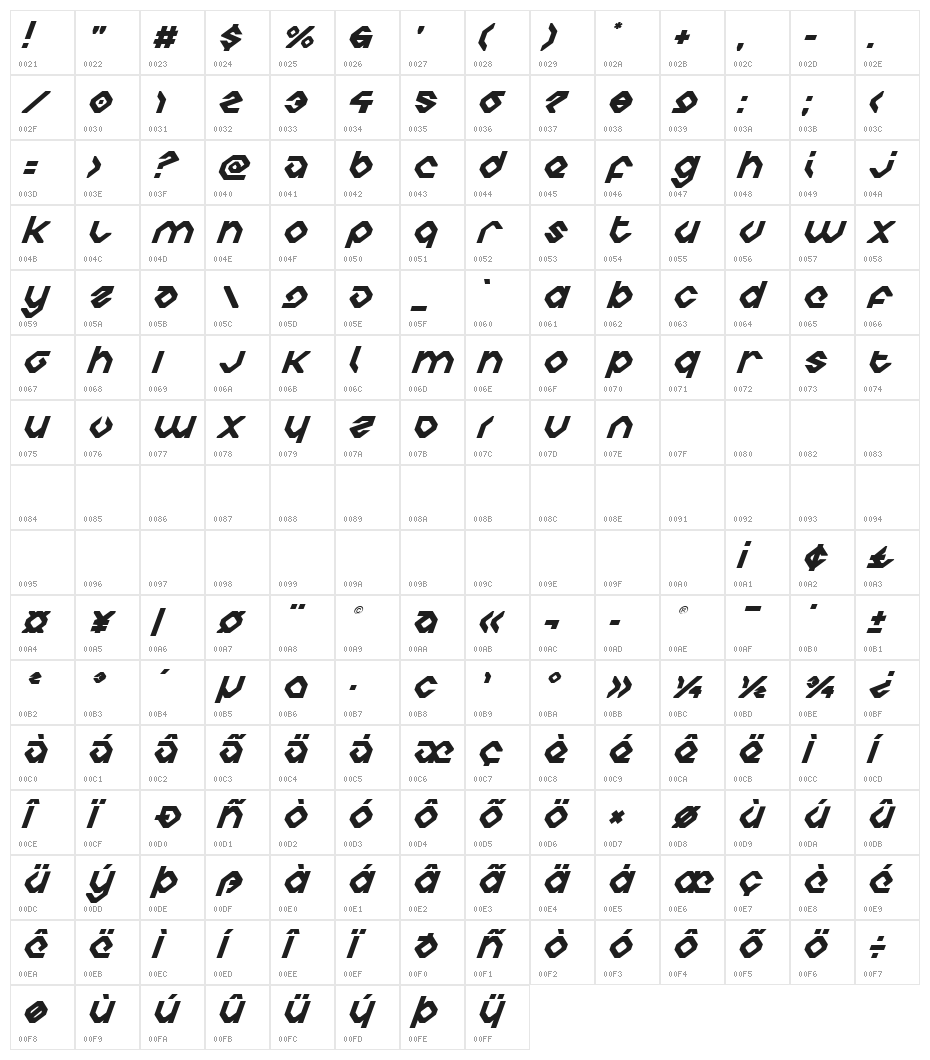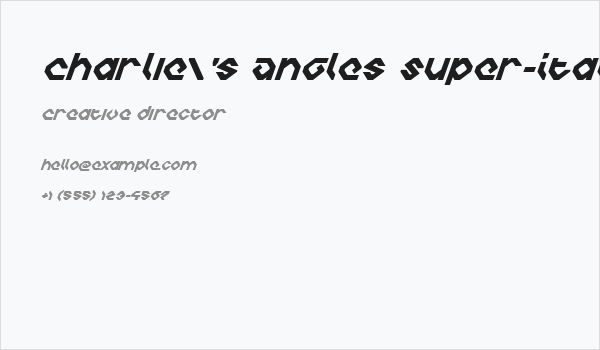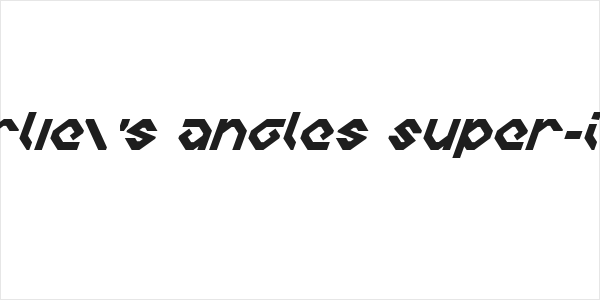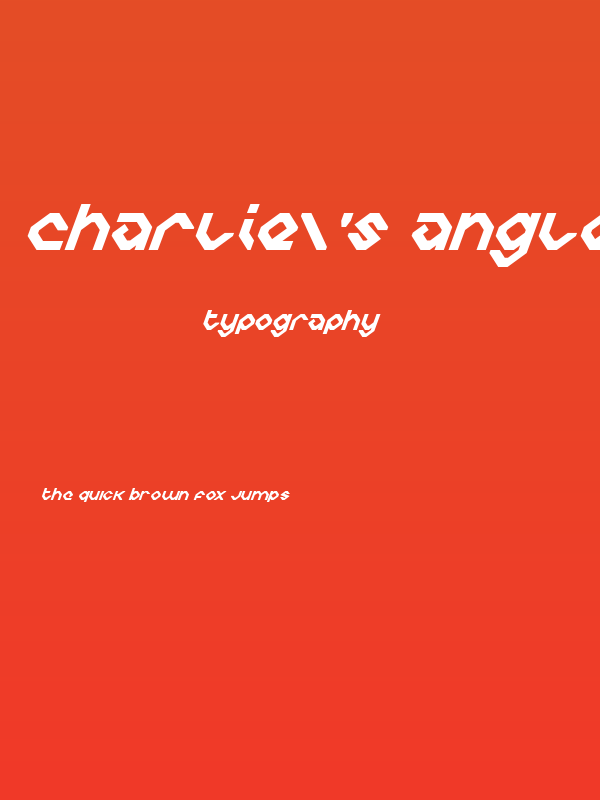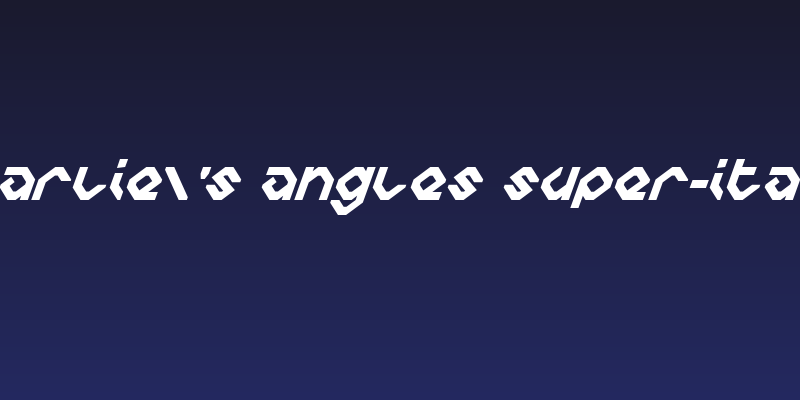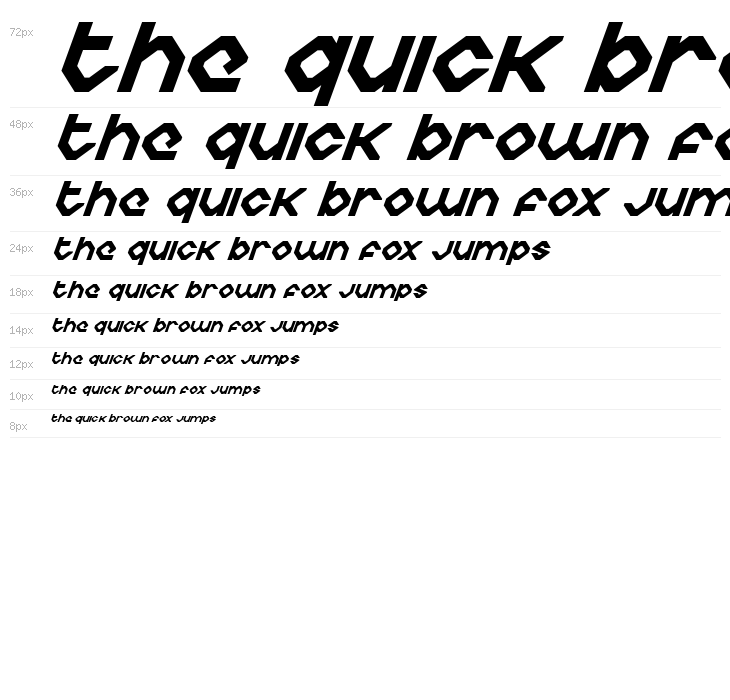
Charlie's Angles Super-Italic Font
Charlie's Angles Super-Italic Description
This font features a bold and dynamic design with a strong italic slant, giving it a sense of motion and energy. The characters are angular and geometric, with sharp edges and a futuristic feel. The uppercase and lowercase letters maintain a consistent style, while the numbers and special characters complement the overall aesthetic. The font's unique style makes it stand out, making it suitable for attention-grabbing designs.
| Overall Style | Modern, Futuristic |
| Proposed Projects | Ideal for sci-fi themed posters, video game graphics, dynamic logos, and edgy branding materials. |